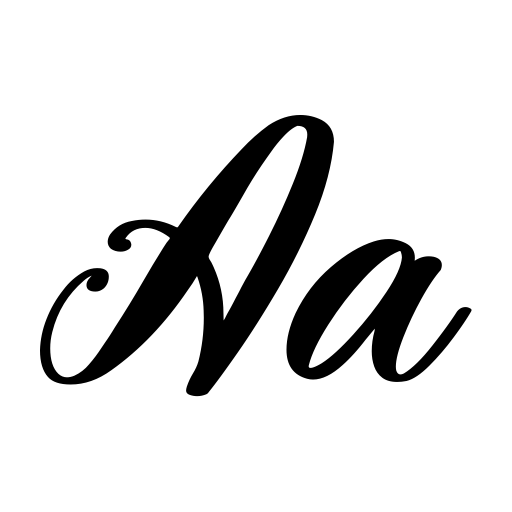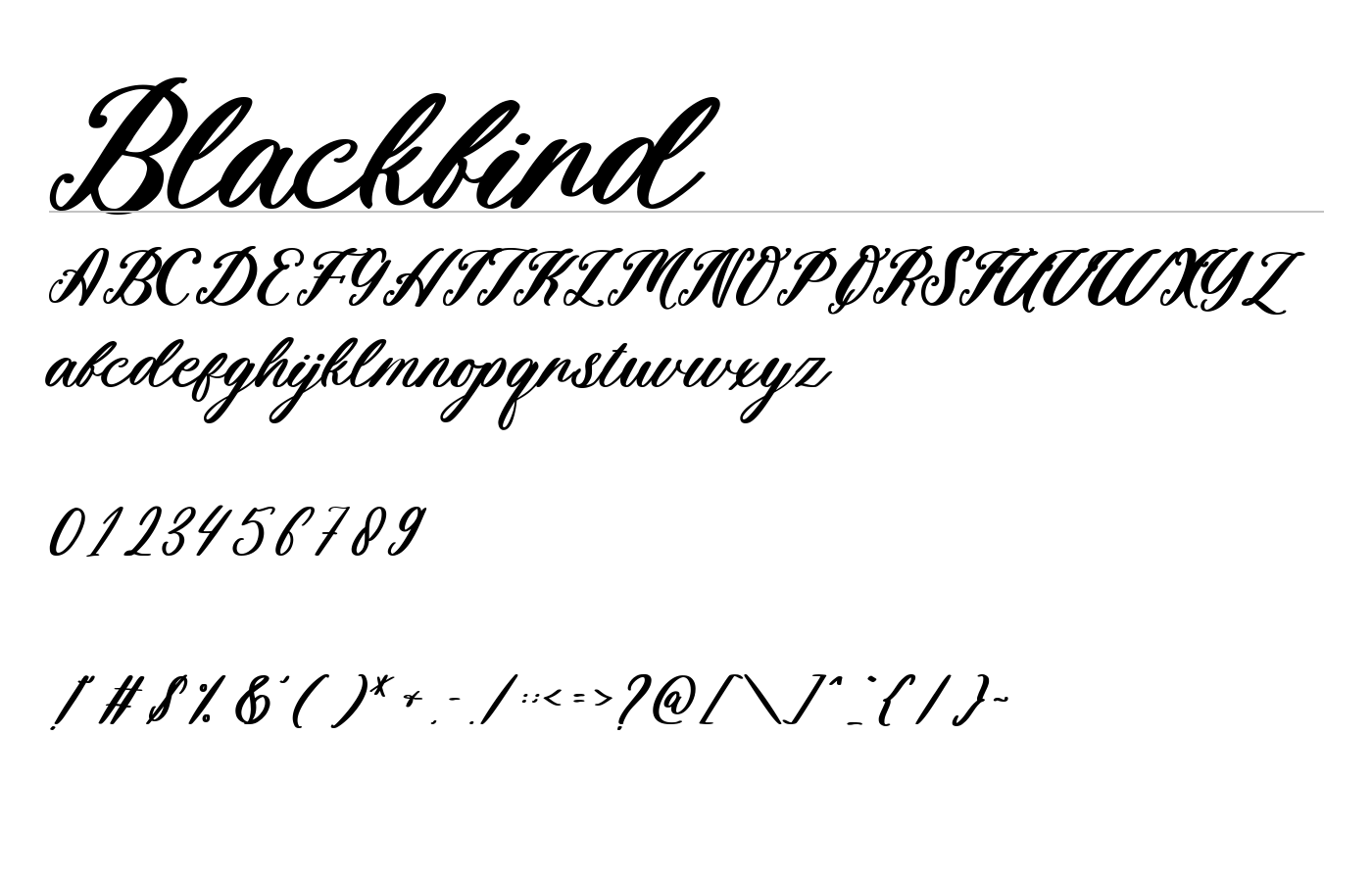
Blackbird is an elegant script font featuring smooth, flowing strokes and a classic calligraphic style. Its slightly italicized, connected letterforms with moderate contrast give it a refined yet approachable personality, making it ideal for invitations, branding, and sophisticated editorial use where a touch of grace and charm is desired.
Blackbird Font
About Blackbird Font